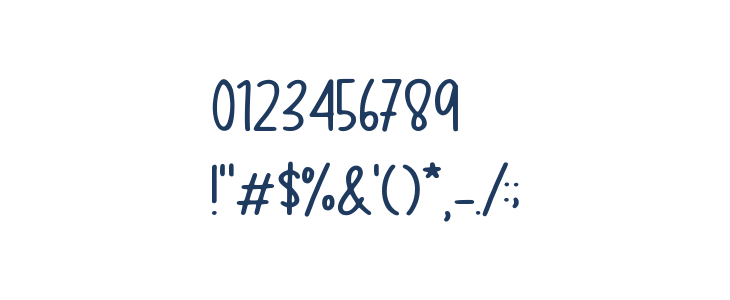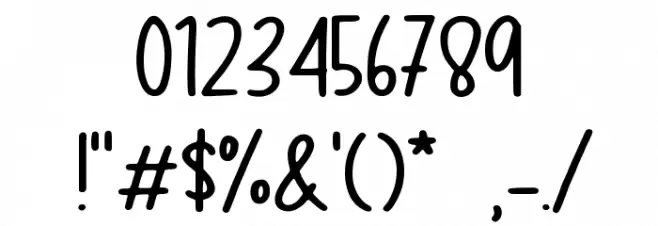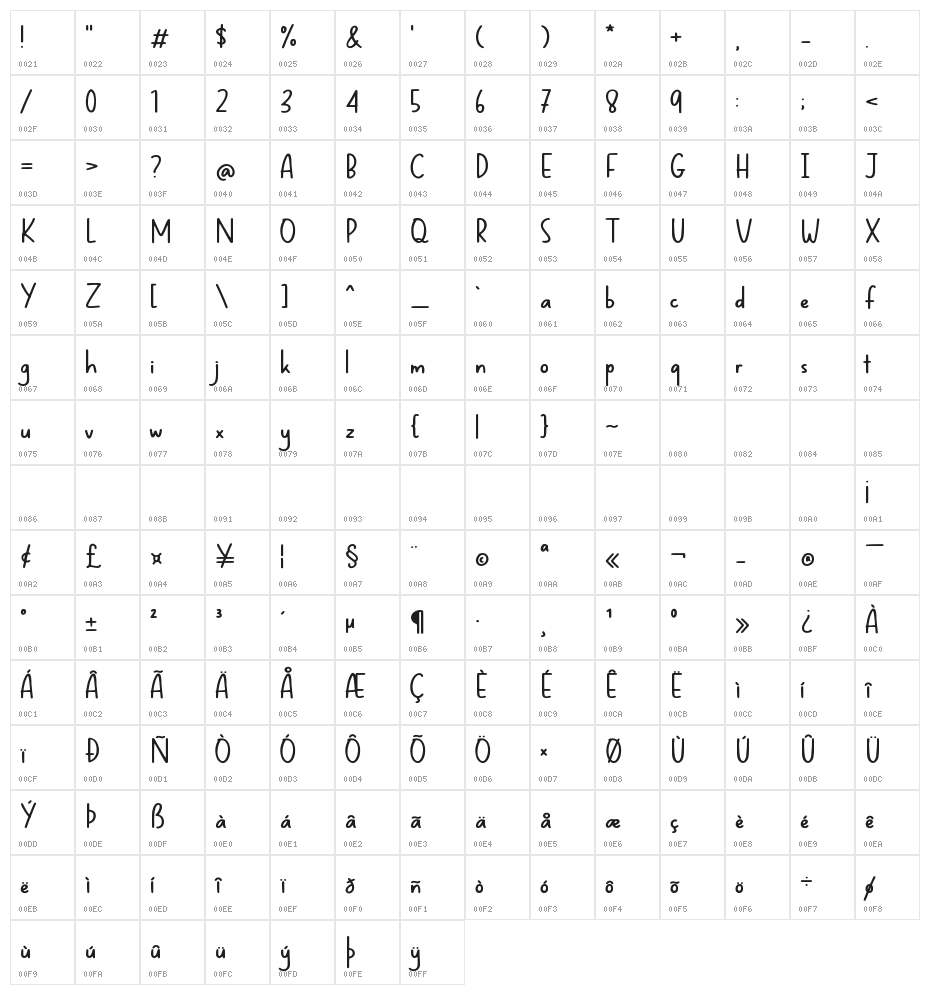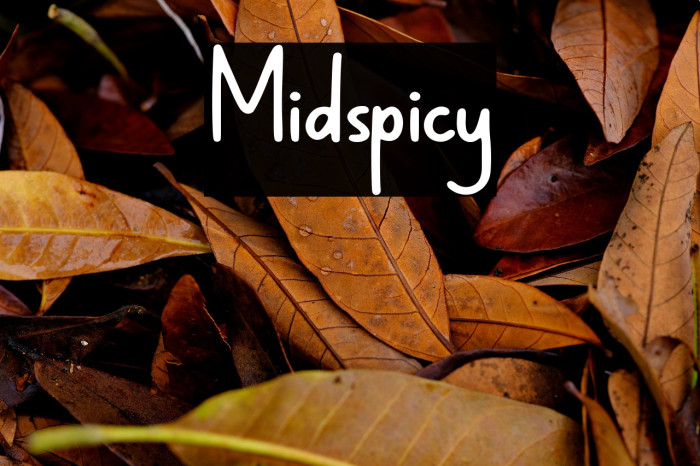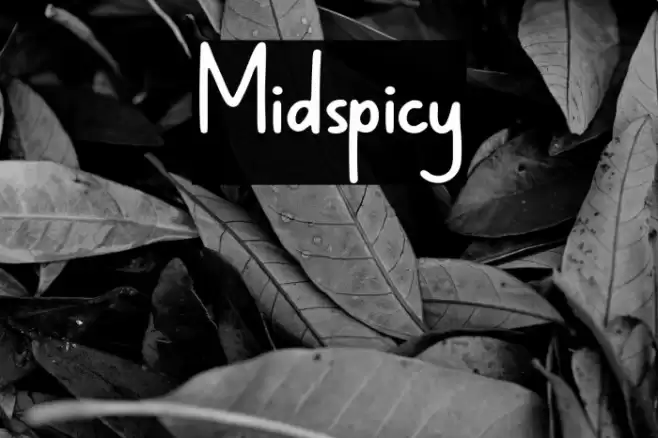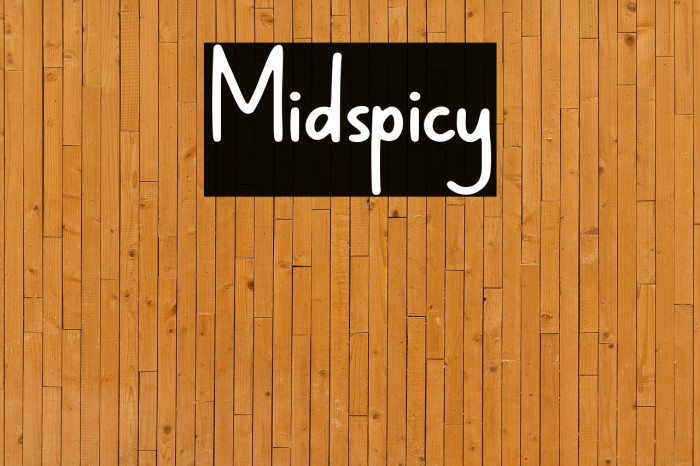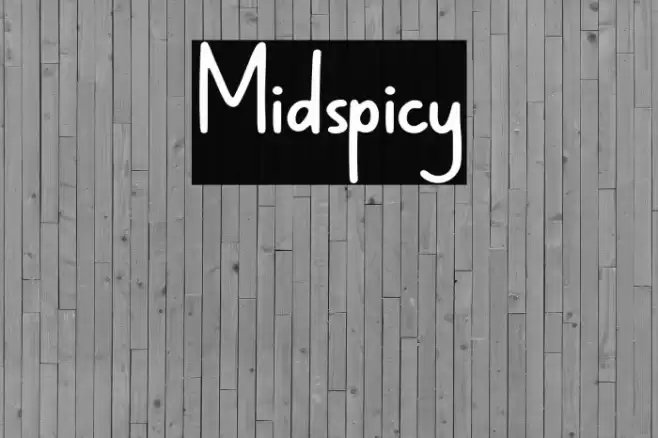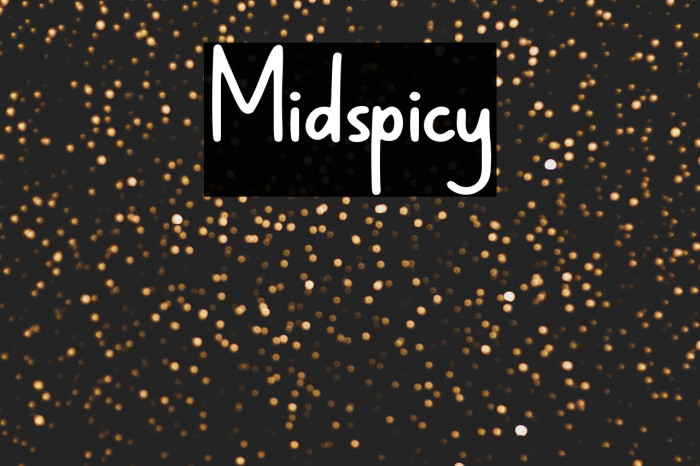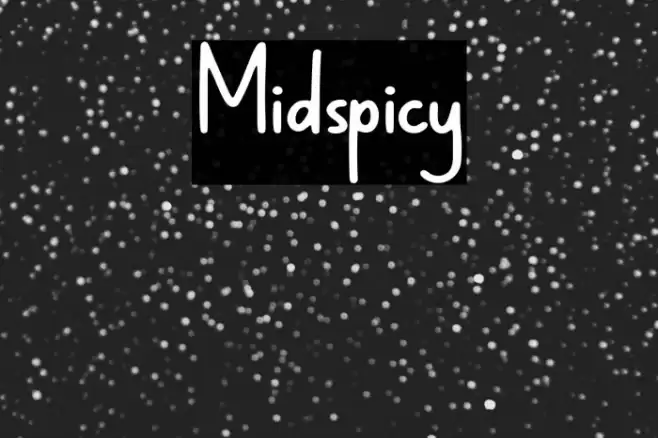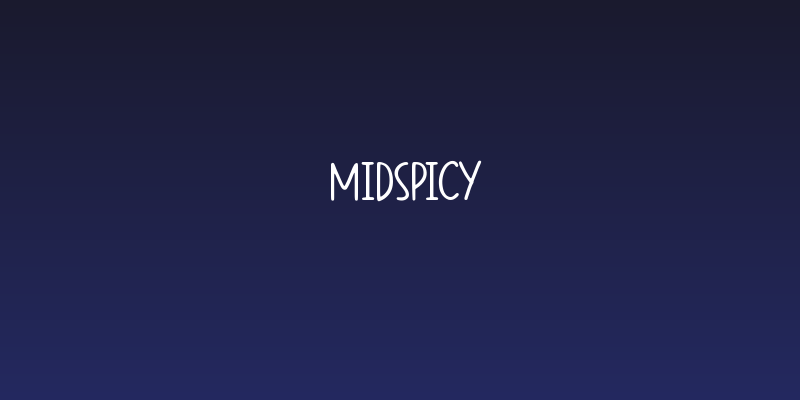
Midspicy Font
Midspicy Description
This playful and energetic font features a handwritten style with a casual and informal appearance. The characters are slightly rounded with a consistent stroke width, giving it a friendly and approachable look. The uppercase letters are tall and narrow, while the lowercase letters maintain a similar height, creating a cohesive visual flow. The numerals are clear and easy to read, matching the overall style of the alphabet. Special characters are included, maintaining the same playful aesthetic. This font is perfect for projects that require a personal touch, such as invitations, greeting cards, or playful branding.
| Proposed Projects | Ideal for invitations, greeting cards, playful branding, and personal projects. |